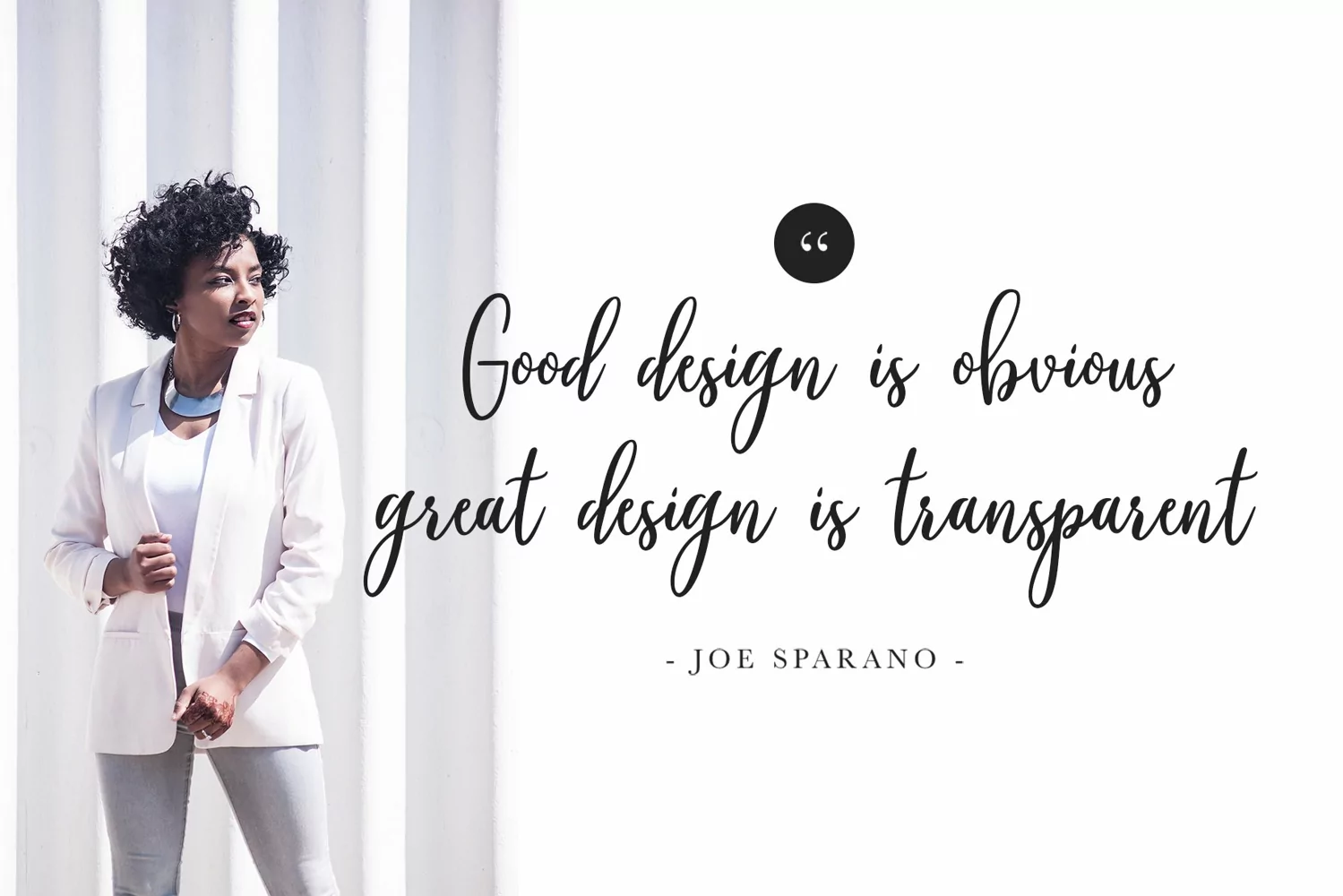
Shelby Script example image 1
Available Shelby new hand font letters calligraphy typography script very simple and interesting, which combines classic style with modern calligraphy style
This font can be used for various purposes such as title, signature, logo, wedding invitation, t-shirt, letterhead, nameplate, label, bulletin, poster, badge etc. Enjoy ...